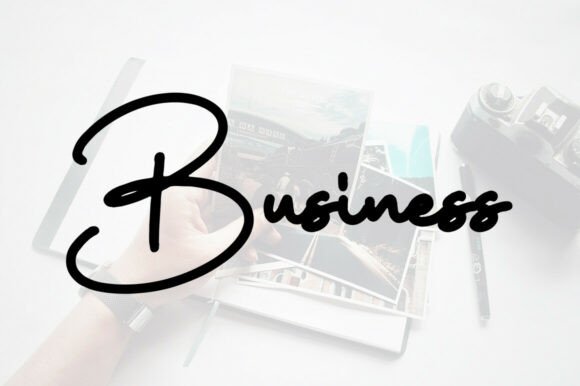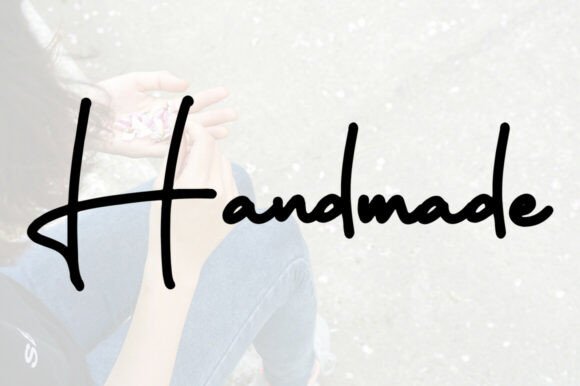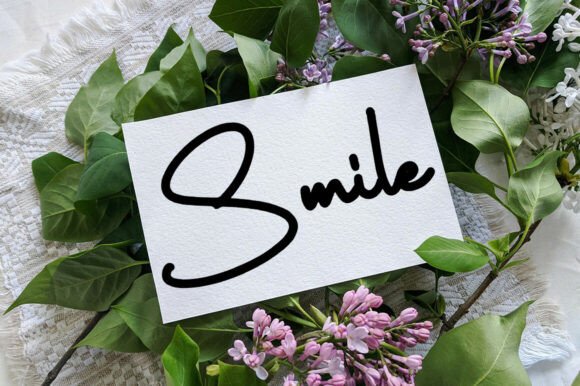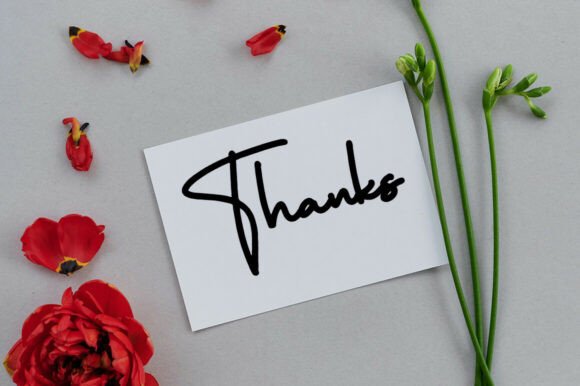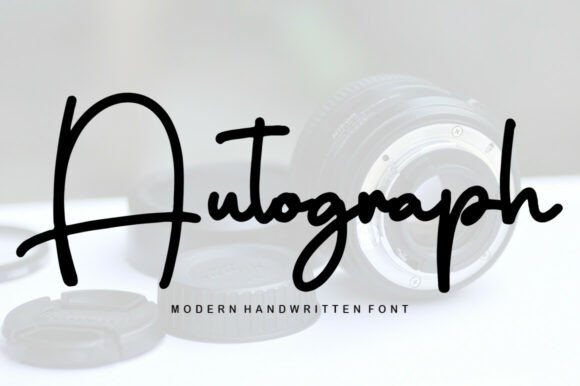
Introducing Autograph Font: The Sweet Handwritten Font for Your Design Needs
Are you looking for a font that can add a personal touch to your designs? Do you want to create beautiful wedding invitations, greeting cards, or other creative projects that exude warmth and friendliness? Look no further than Autograph Font, a sweet handwritten font that’s perfect for designers and crafters alike.
What is Autograph Font?
Autograph Font is a delightful handwritten font that’s designed to bring a touch of whimsy and playfulness to your designs. With its friendly and cute appearance, this font is ideal for creating a wide range of projects, from wedding invitations and cards to posters, flyers, and more.
Key Features of Autograph Font
- Handwritten style: Autograph Font features a beautiful, handwritten style that’s perfect for adding a personal touch to your designs.
- Friendly and cute: This font has a warm and approachable feel that’s sure to delight your audience.
- Versatile: Autograph Font can be used for a wide range of projects, from formal wedding invitations to casual greeting cards.
- Easy to read: Despite its handwritten style, Autograph Font is easy to read and understand, making it perfect for body text and headings.
Uses for Autograph Font
Autograph Font is an incredibly versatile font that can be used for a wide range of projects, including:
- Wedding invitations: Create beautiful, custom wedding invitations that reflect the happy couple’s personality.
- Greeting cards: Design personalized greeting cards for birthdays, holidays, and other special occasions.
- Posters and flyers: Use Autograph Font to create eye-catching posters and flyers for events, promotions, and more.
- Social media graphics: Add a personal touch to your social media graphics, including Facebook posts, Instagram stories, and more.
- Branding and packaging: Use Autograph Font to create custom branding and packaging materials that reflect your brand’s personality.
Why Choose Autograph Font?
There are many fonts available that can add a personal touch to your designs, but Autograph Font stands out for several reasons:
- Unique style: Autograph Font has a unique, handwritten style that’s sure to set your designs apart.
- Easy to use: This font is incredibly easy to use, even for designers who are new to working with handwritten fonts.
- High-quality: Autograph Font is a high-quality font that’s designed to produce crisp, clear text at any size.
Tips for Using Autograph Font
To get the most out of Autograph Font, here are a few tips to keep in mind:
- Use it sparingly: While Autograph Font is beautiful, it can be overwhelming if used too much. Use it sparingly to add a touch of personality to your designs.
- Pair it with other fonts: Autograph Font pairs well with other fonts, including serif and sans serif fonts. Experiment with different pairings to find the one that works best for your design.
- Experiment with colors: Autograph Font looks great in a variety of colors, from bright and bold to soft and pastel.
Autograph Font is a sweet handwritten font that’s perfect for designers and crafters who want to add a personal touch to their designs. With its friendly and cute appearance, this font is ideal for creating a wide range of projects, from wedding invitations and cards to posters, flyers, and more. Whether you’re a seasoned designer or just starting out, Autograph Font is a great choice for anyone looking to add a touch of whimsy and playfulness to their designs.